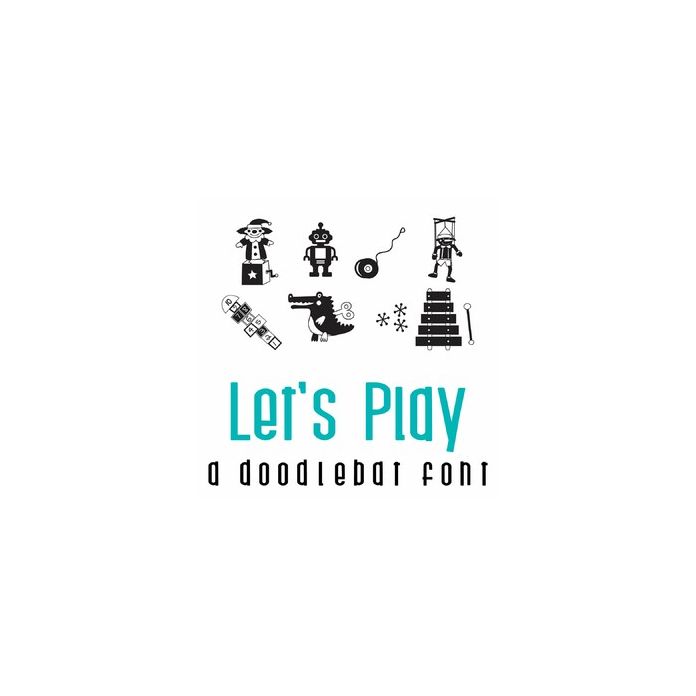
Let's Play Doodlebat Font
This fun doodlebat font features 26 adorable toys. Perfect for cards, gifts, decor, crafts, scrap book pages, planner stickers and more!